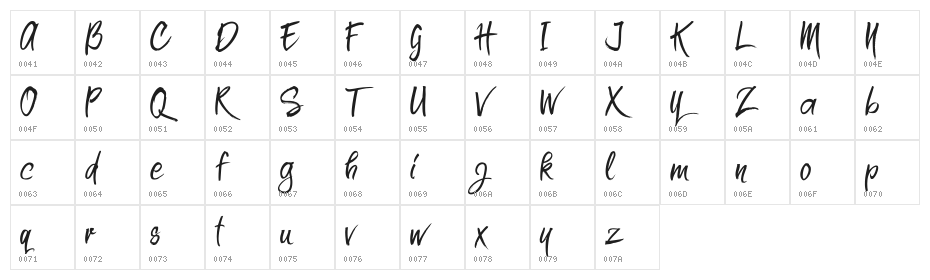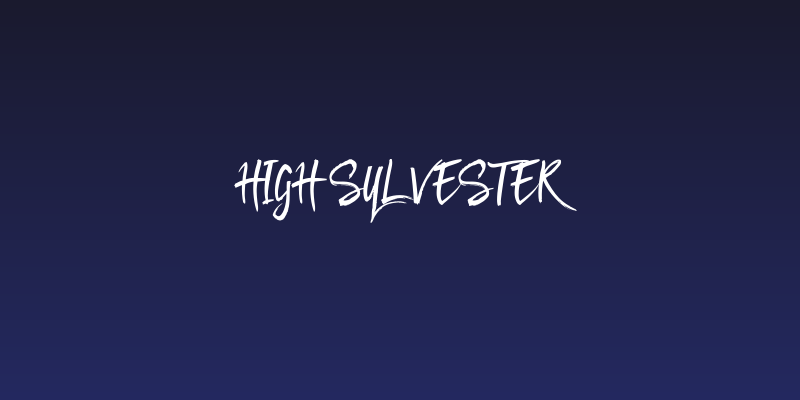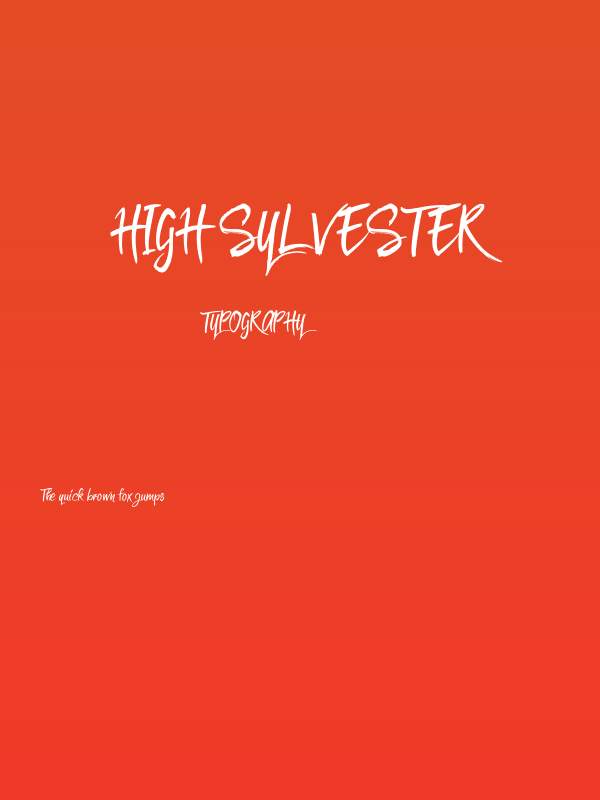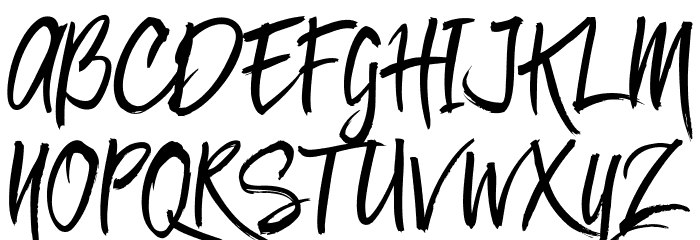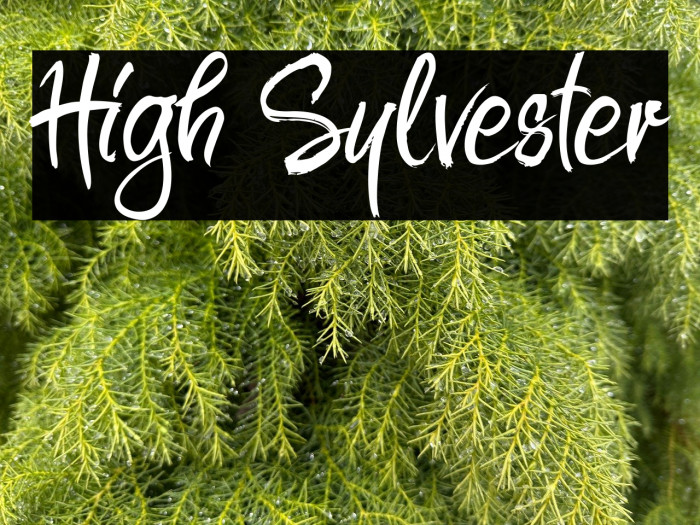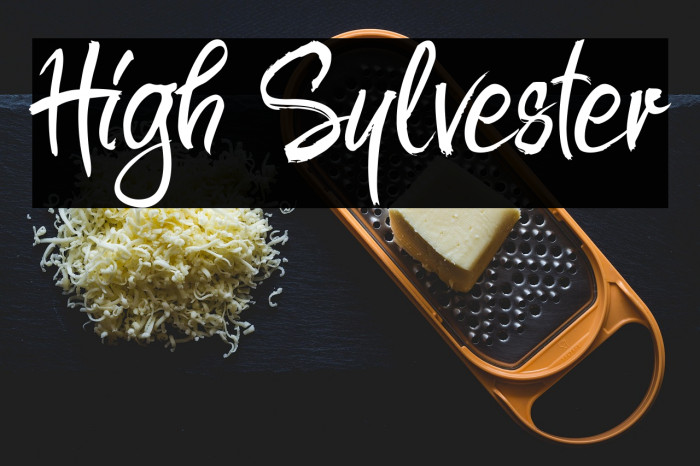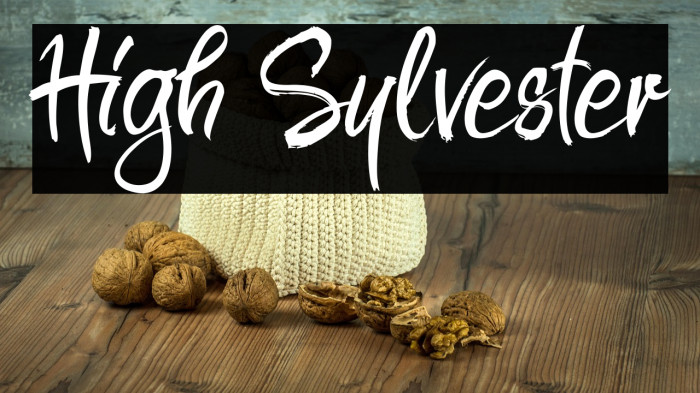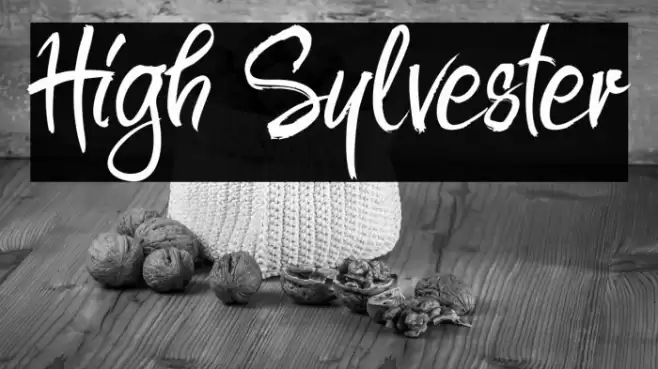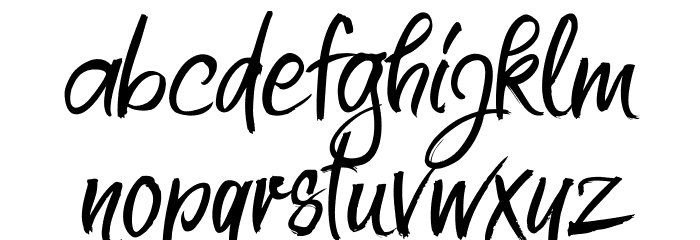
High Sylvester Font
| Anwendungsfall | Logos, Headlines, Posters |
| Vorgeschlagene Projekte | Ideal for branding, logo design, posters, and invitations where a personal and artistic touch is desired. |